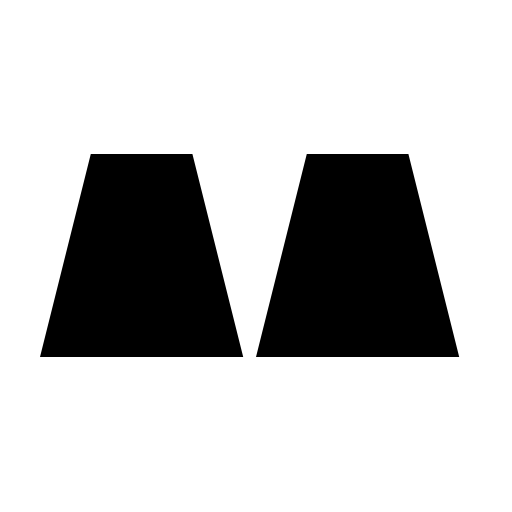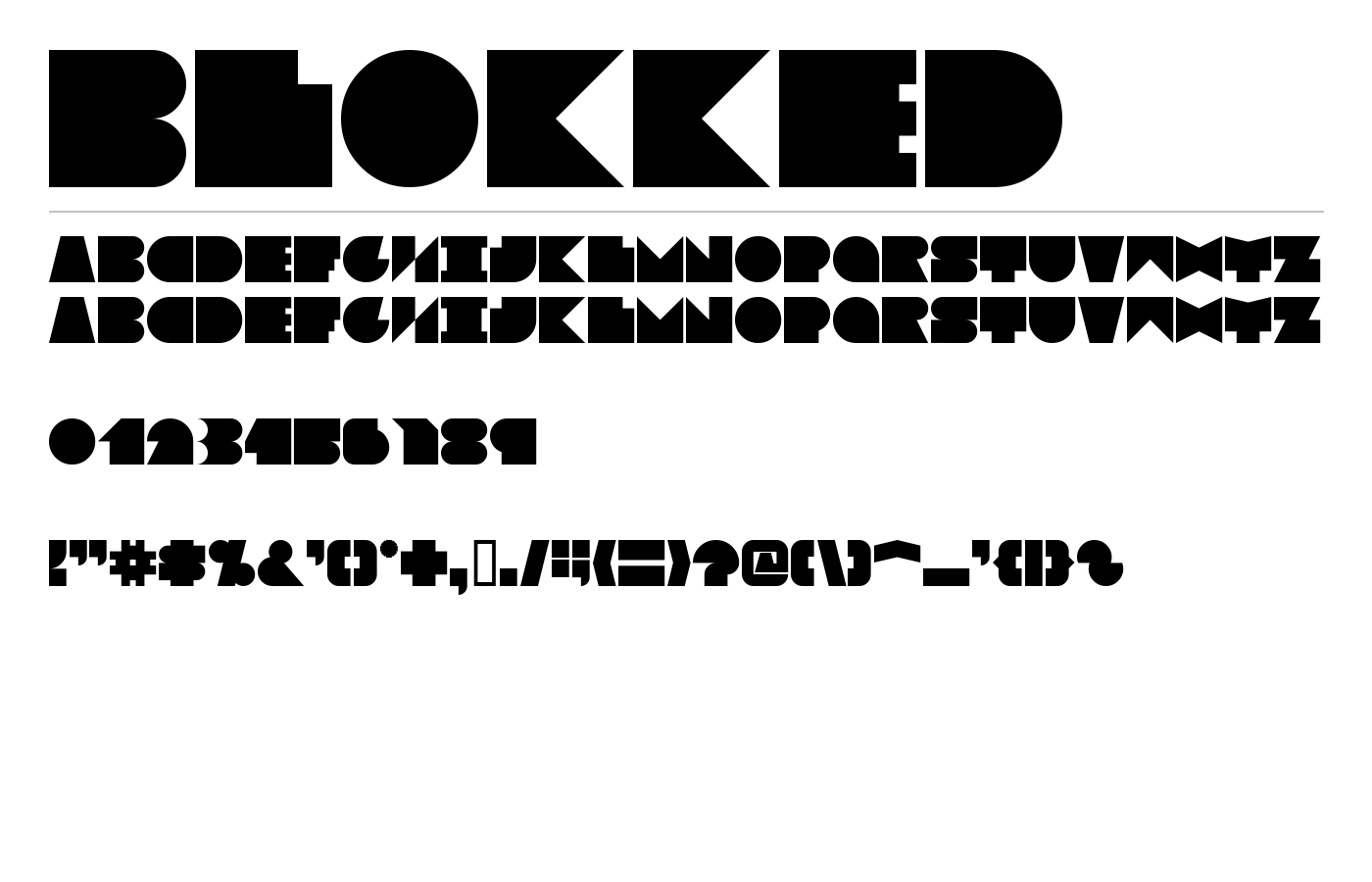
Blokked is a bold, geometric display font with a striking, blocky design that emphasizes solid shapes and strong contrasts. Its heavy weight and condensed forms make it ideal for eye-catching headlines, logos, and posters where a modern, playful, and impactful statement is needed. This unique font is perfect for brands or projects looking to convey strength and creativity with a touch of futuristic flair.
Blokked Font